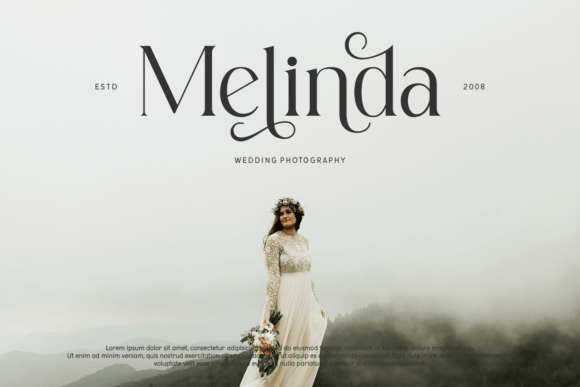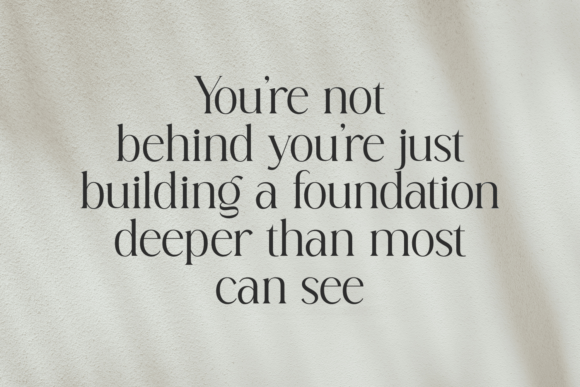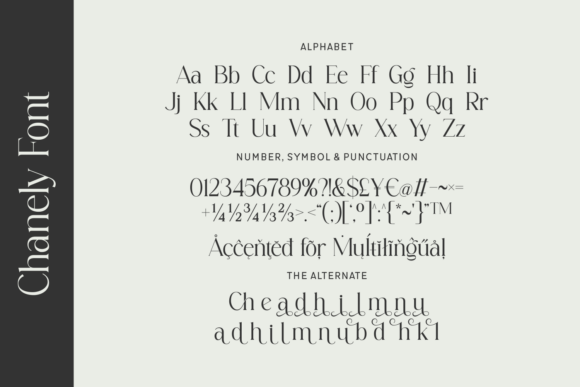
Introducing Chanely Font: The Epitome of Modern Serif Elegance
In the realm of typography, few fonts manage to strike a balance between classic sophistication and modern flair. Chanely Font, however, is a shining exception. This refined modern serif font seamlessly merges timeless elegance with delicate touches, making it an ideal choice for designers and crafters seeking to infuse their projects with luxury and femininity.
The Distinctive Features of Chanely Font
Chanely’s beauty lies in its meticulously crafted features, which include:
- Graceful Ligatures: Chanely boasts an array of ligatures that add a touch of sophistication to any text. These ligatures ensure that the font flows smoothly, creating a harmonious reading experience.
- Elegant Swashes: The font’s swashes bring an element of flair, allowing designers to add a decorative touch to their work. These swashes can be used to create stunning headings, titles, and even signatures.
- High Contrast Strokes: The high contrast between thick and thin strokes in Chanely gives it a refined, elegant appearance. This contrast adds depth to the font, making it perfect for designs that require a touch of luxury.
Applications of Chanely Font
Given its elegant and sophisticated nature, Chanely Font is versatile and can be applied to a variety of design projects, including:
- Branding: Chanely can help brands convey a sense of luxury, elegance, and sophistication. It’s perfect for brands that aim to stand out with a refined and classy image.
- Upscale Packaging: For packaging designs that require a touch of elegance and luxury, Chanely is an excellent choice. It can elevate the perceived value of products and make them more appealing to discerning customers.
- Wedding Stationery: The font’s delicate and feminine characteristics make it ideal for wedding invitations, menus, and other stationery. It helps create a romantic and sophisticated atmosphere for wedding-related designs.
- Editorial Designs: Chanely can bring a touch of class to editorial projects, such as magazines, newspapers, and blogs. Its readability and elegance make it suitable for both headings and body text.
Why Choose Chanely Font?
Choosing Chanely Font for your design projects comes with numerous benefits:
- Timeless Beauty: Unlike trendy fonts that may quickly become outdated, Chanely’s classic elegance ensures it remains stylish and relevant for years to come.
- Stylish Modernity: While Chanely has a classic base, its modern touches ensure it feels contemporary and fresh. This blend of old and new makes it highly versatile for a wide range of projects.
- Enhanced Readability: Despite its elegant and decorative features, Chanely maintains high readability, making it suitable for both digital and print designs.
Tips for Using Chanely Font Effectively
To maximize the impact of Chanely Font in your designs, consider the following tips:
- Mix and Match: Don’t be afraid to experiment with Chanely’s various features, such as ligatures and swashes, to create unique and captivating designs.
- Pair Wisely: When pairing Chanely with other fonts, opt for those that complement its elegance. Simple sans serifs or classic serif fonts can create a beautiful contrast.
- Pay Attention to Size: Chanely’s delicate features are best appreciated at larger sizes. Ensure that you’re using the font at a size that allows its beauty to shine through.
Chanely Font is a masterpiece of modern serif typography, offering a perfect blend of classic sophistication and delicate flair. Its elegant features, versatility, and timeless beauty make it an invaluable asset for designers and crafters looking to elevate their projects. Whether you’re working on branding, packaging, wedding stationery, or editorial designs, Chanely is sure to bring a touch of luxury and femininity that will set your work apart.